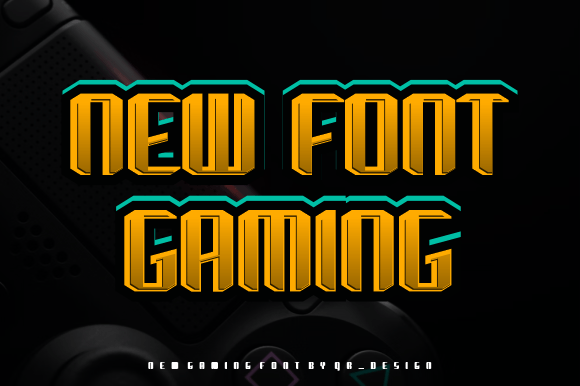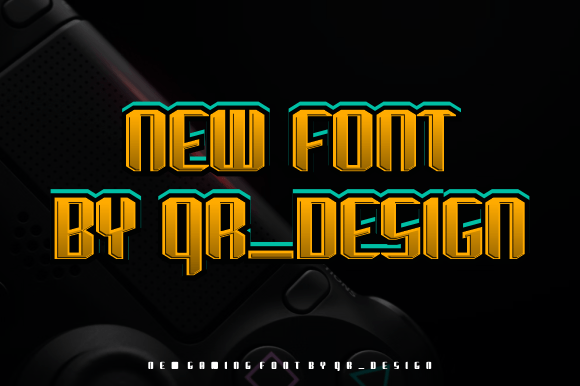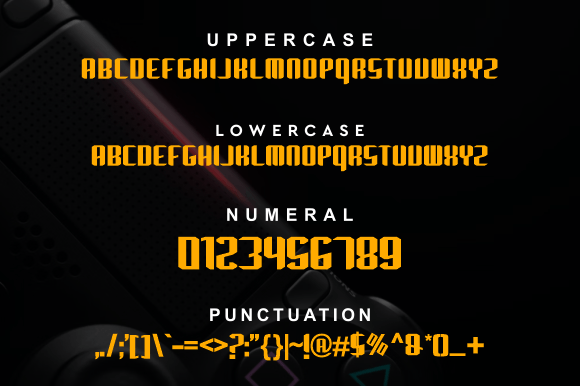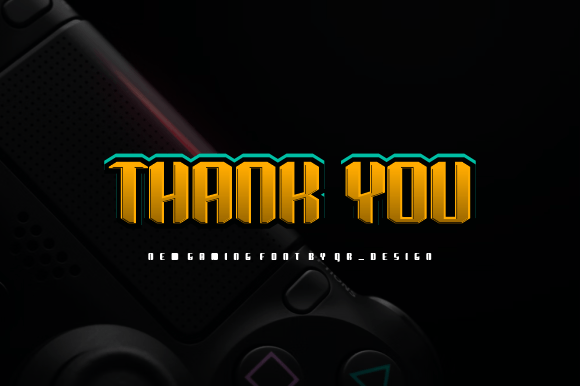
Introducing Game Beatrix Font: The Ultimate Gaming Display Font
Are you a designer, gamer, or crafter looking for a bold and authentic display font to elevate your branding projects? Look no further than Game Beatrix Font. This versatile font is specifically designed to make a statement, making it perfect for a wide range of applications, from logos and t-shirt printing to esport and more.
What is Game Beatrix Font?
Game Beatrix Font is a bold and authentic display font that exudes a sense of power and sophistication. Its unique design elements are carefully crafted to create a distinctive look that sets it apart from other fonts. Whether you’re working on a branding project, creating gaming-related content, or designing merchandise, Game Beatrix Font is the perfect choice.
Key Features of Game Beatrix Font
- Bold and Authentic Design: Game Beatrix Font boasts a bold and authentic design that commands attention and makes a lasting impression.
- Versatile: This font is suitable for a wide range of contexts, including logos, t-shirt printing, esport, and more.
- Easily Readable: Despite its bold design, Game Beatrix Font remains easily readable, even at smaller sizes.
- Unique Design Elements: The font features unique design elements that set it apart from other fonts, making it perfect for designers and crafters looking for something distinctive.
Use Cases for Game Beatrix Font
Game Beatrix Font is an incredibly versatile font that can be used in a variety of contexts. Here are some examples of how you can use this font to elevate your designs:
- Logo Design: Create a bold and memorable logo for your brand or gaming team with Game Beatrix Font.
- T-Shirt Printing: Design eye-catching t-shirts for gamers and esports enthusiasts with this font.
- Esports: Use Game Beatrix Font to create professional-looking branding materials for your esports team or event.
- Merchandise: Design a range of merchandise, including posters, stickers, and more, with Game Beatrix Font.
Why Choose Game Beatrix Font?
With so many fonts available, why choose Game Beatrix Font? Here are just a few reasons why designers and crafters love this font:
- Unique Design: Game Beatrix Font features a unique design that sets it apart from other fonts.
- High-Quality: This font is designed to deliver high-quality results, even at larger sizes.
- Versatile: This font can be used in a wide range of contexts, making it a great addition to any design toolkit.